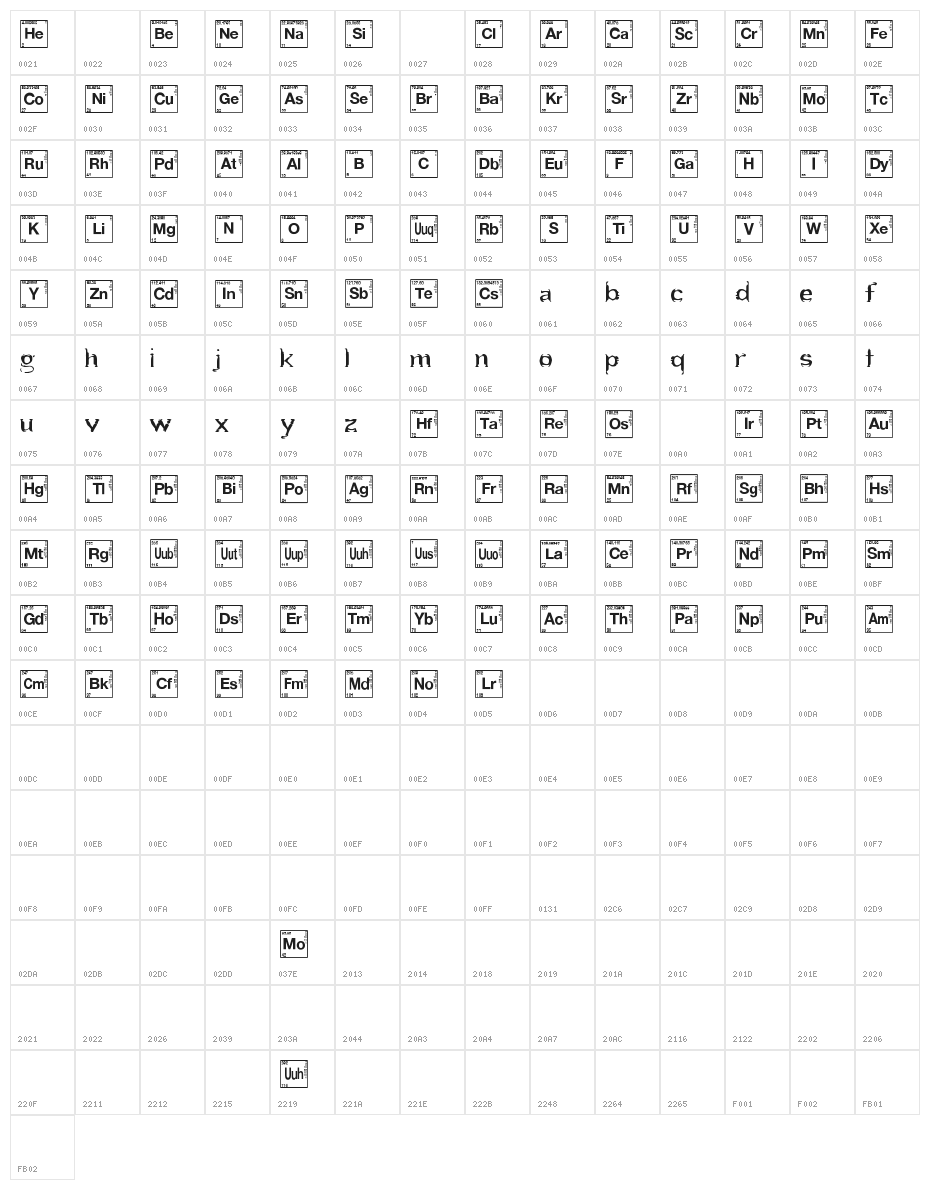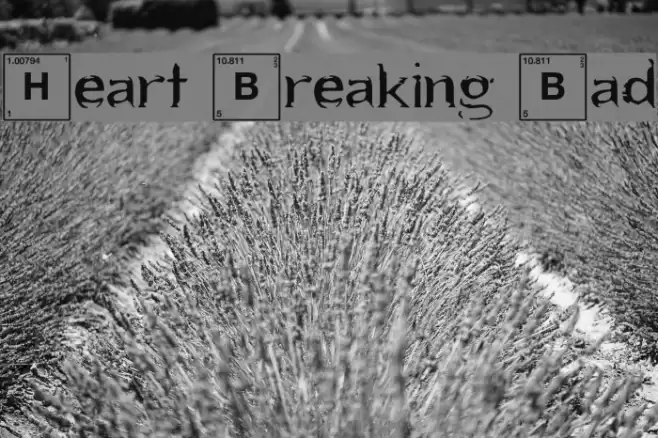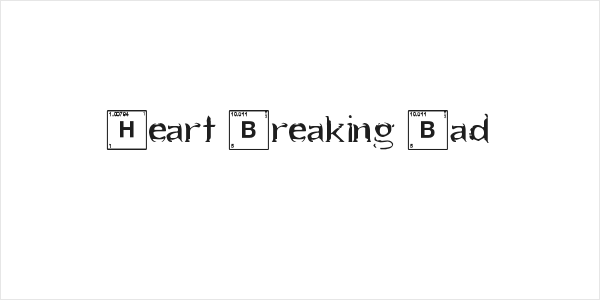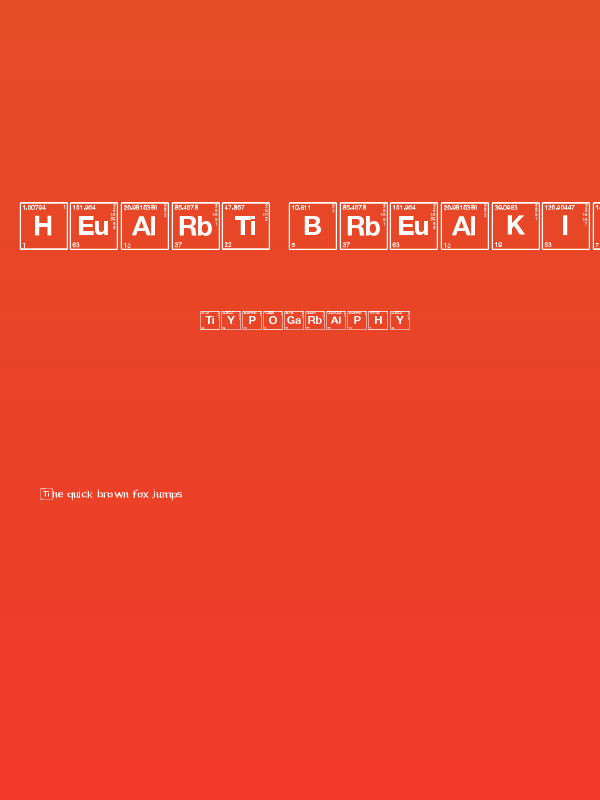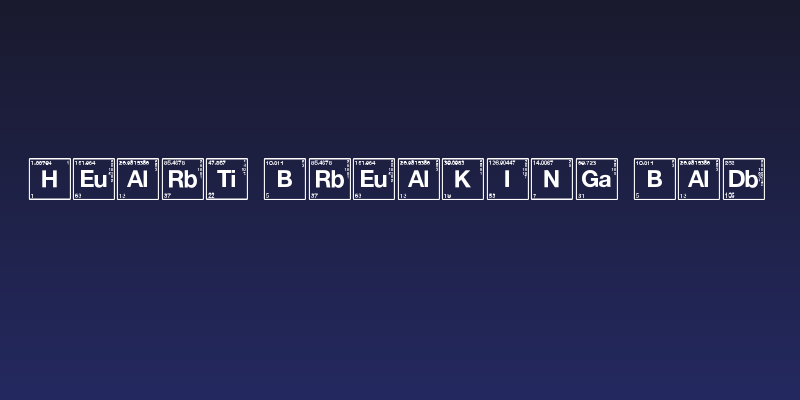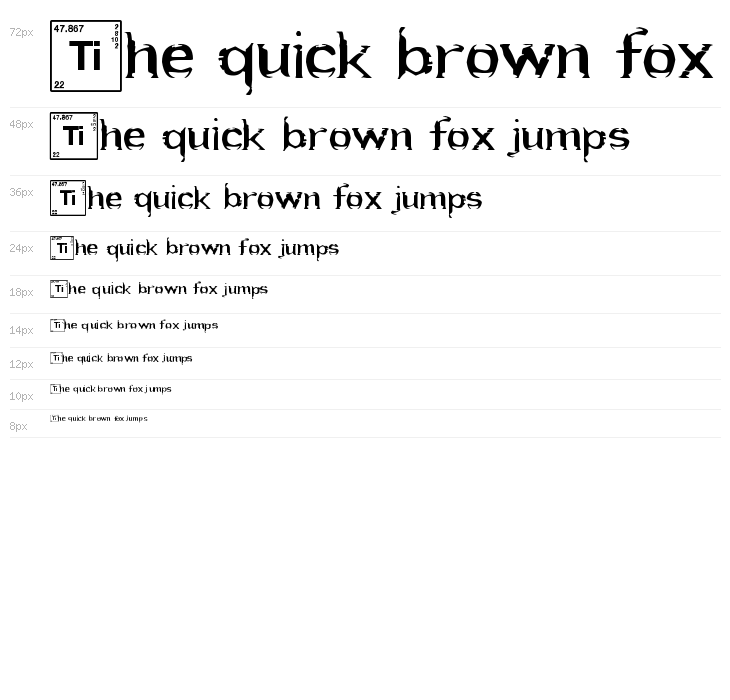
Heart Breaking Bad Font
Heart Breaking Bad Description
This font features a unique, decorative style that draws inspiration from the periodic table of elements, incorporating scientific symbols and atomic numbers into its design. The characters are bold and have a slightly distressed, grunge appearance, giving them an edgy and modern look. The uppercase letters are styled to resemble chemical element symbols, complete with atomic numbers and weights, while the lowercase letters maintain a consistent, artistic flair. The numerals and special characters follow the same thematic design, making this font ideal for projects that require a scientific or experimental aesthetic.
| Proposed Projects | Ideal for science-themed posters, educational materials, and creative branding projects. |